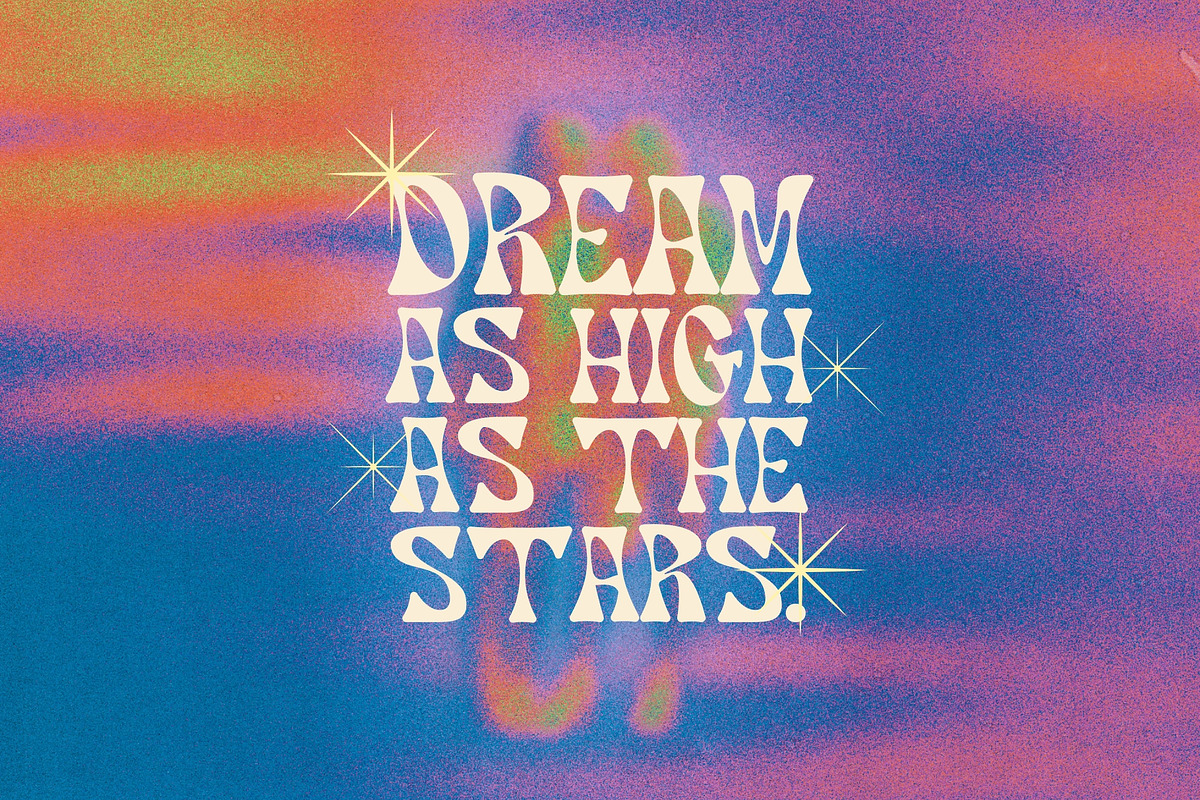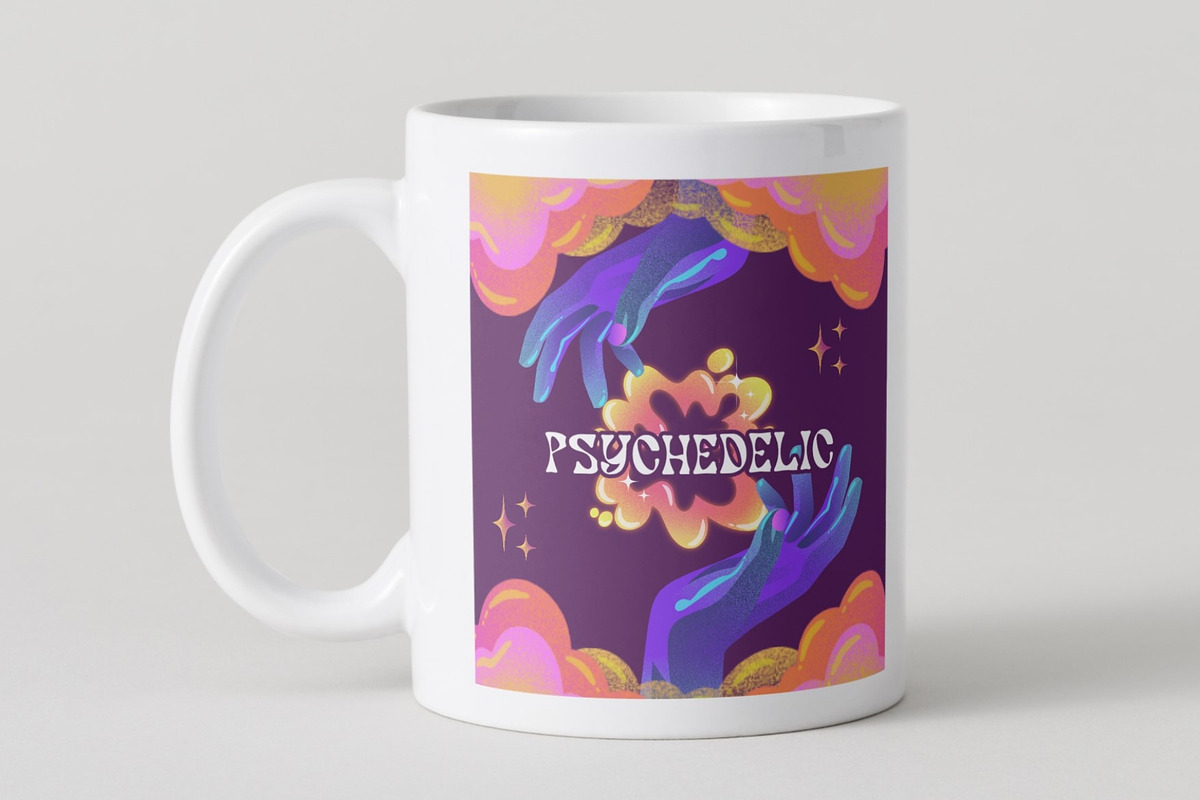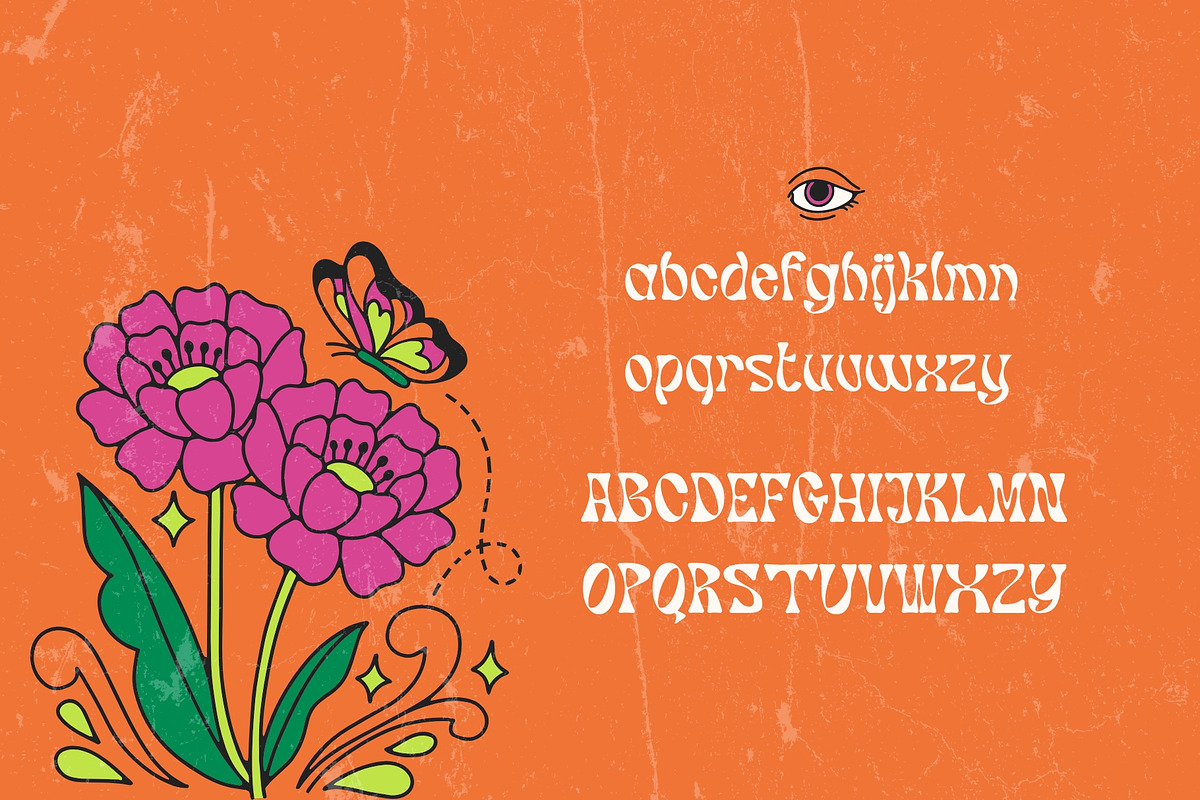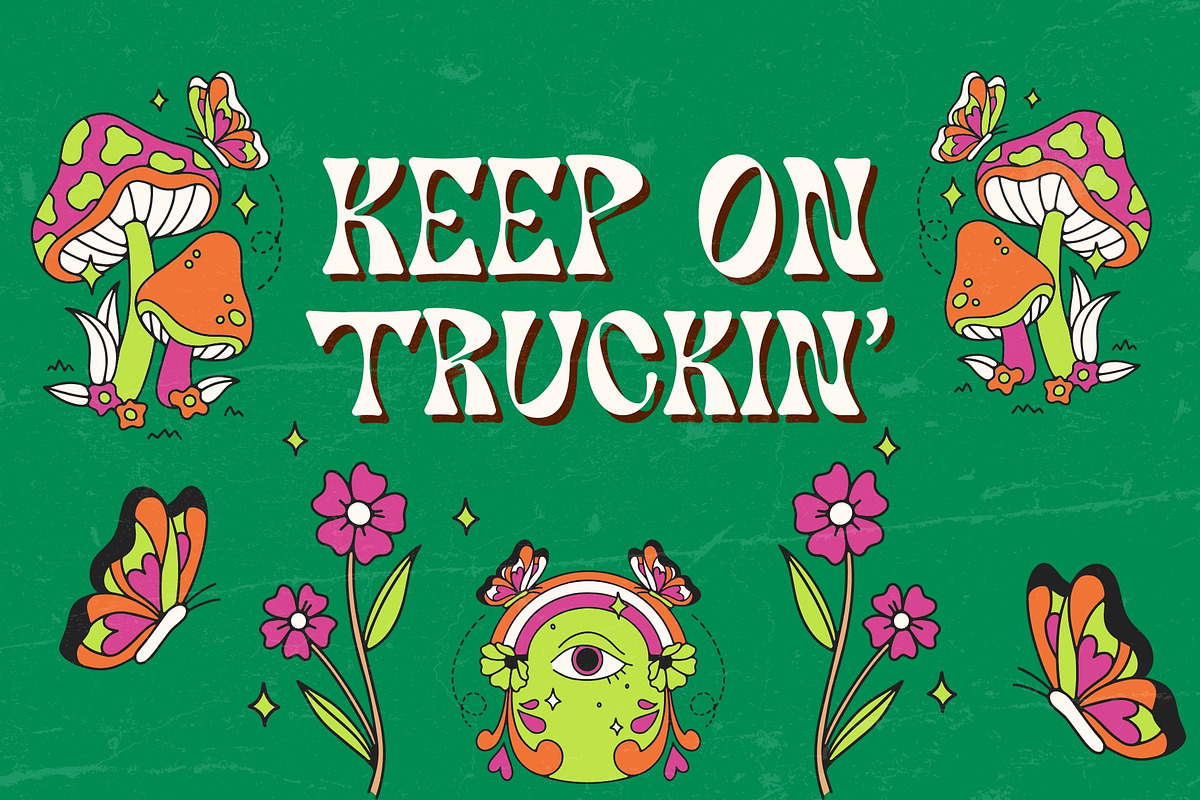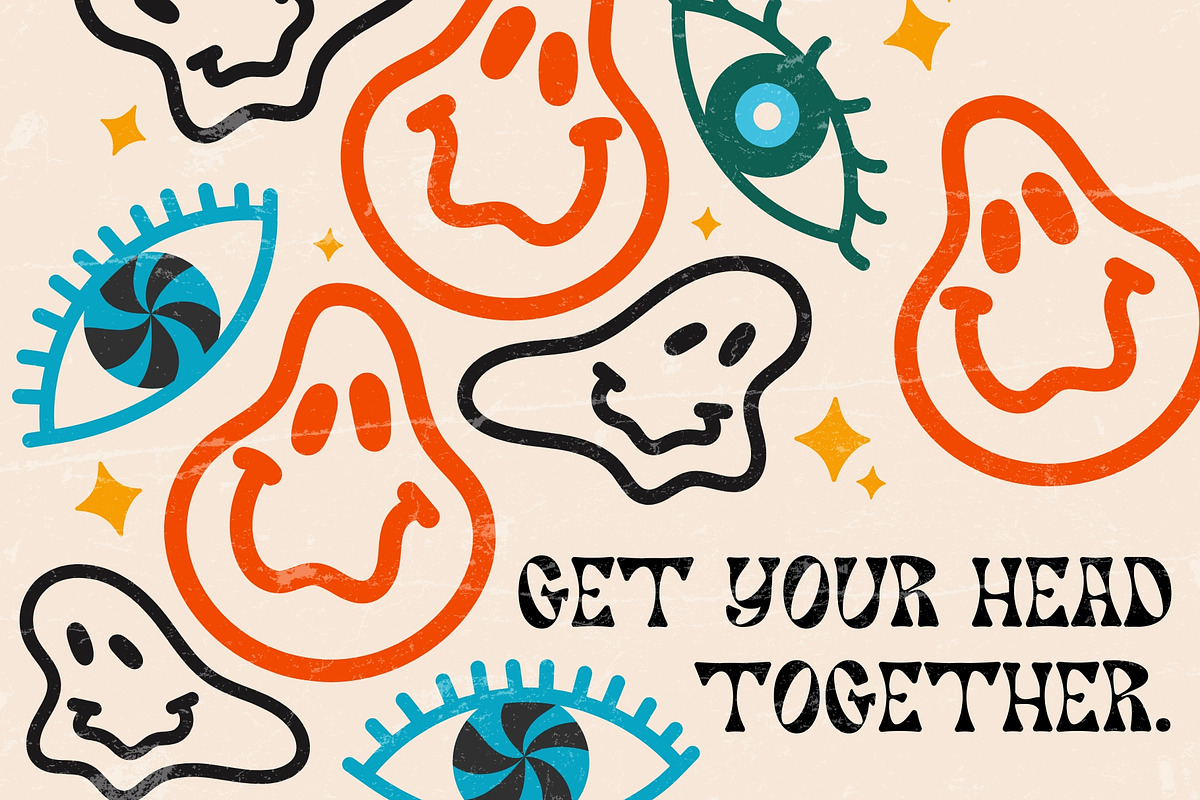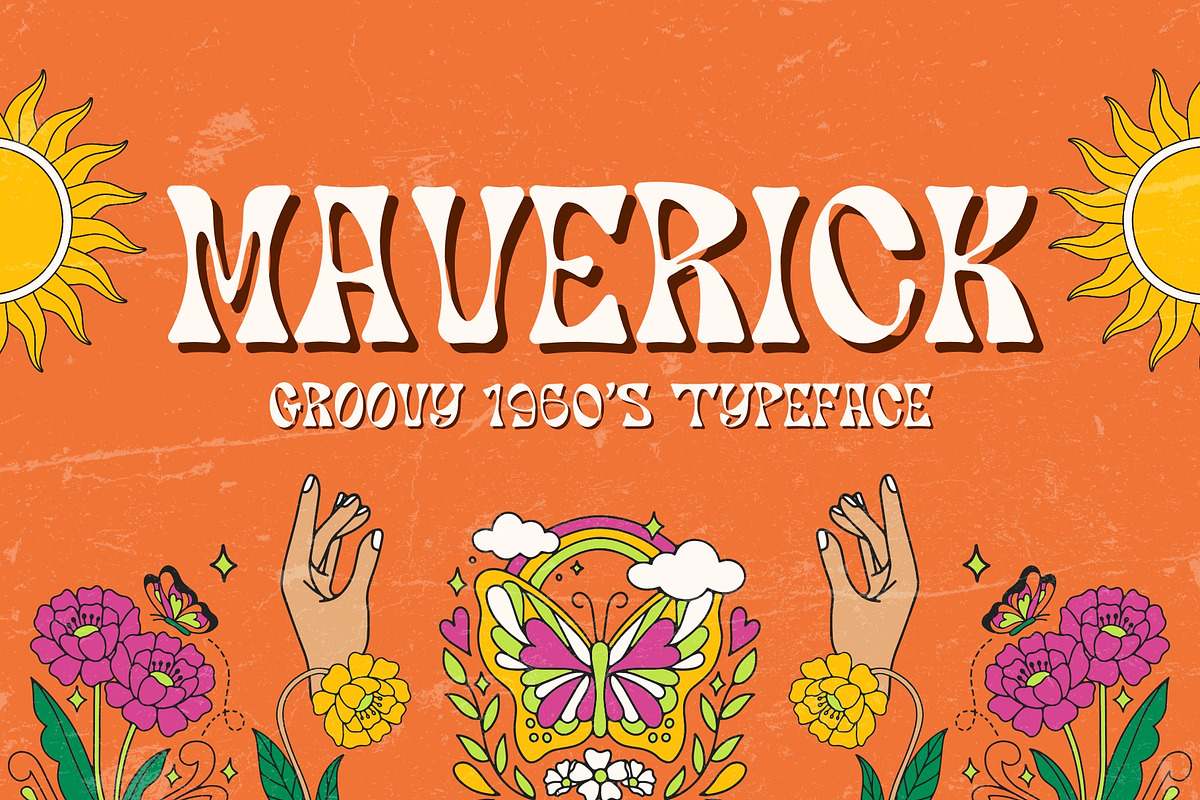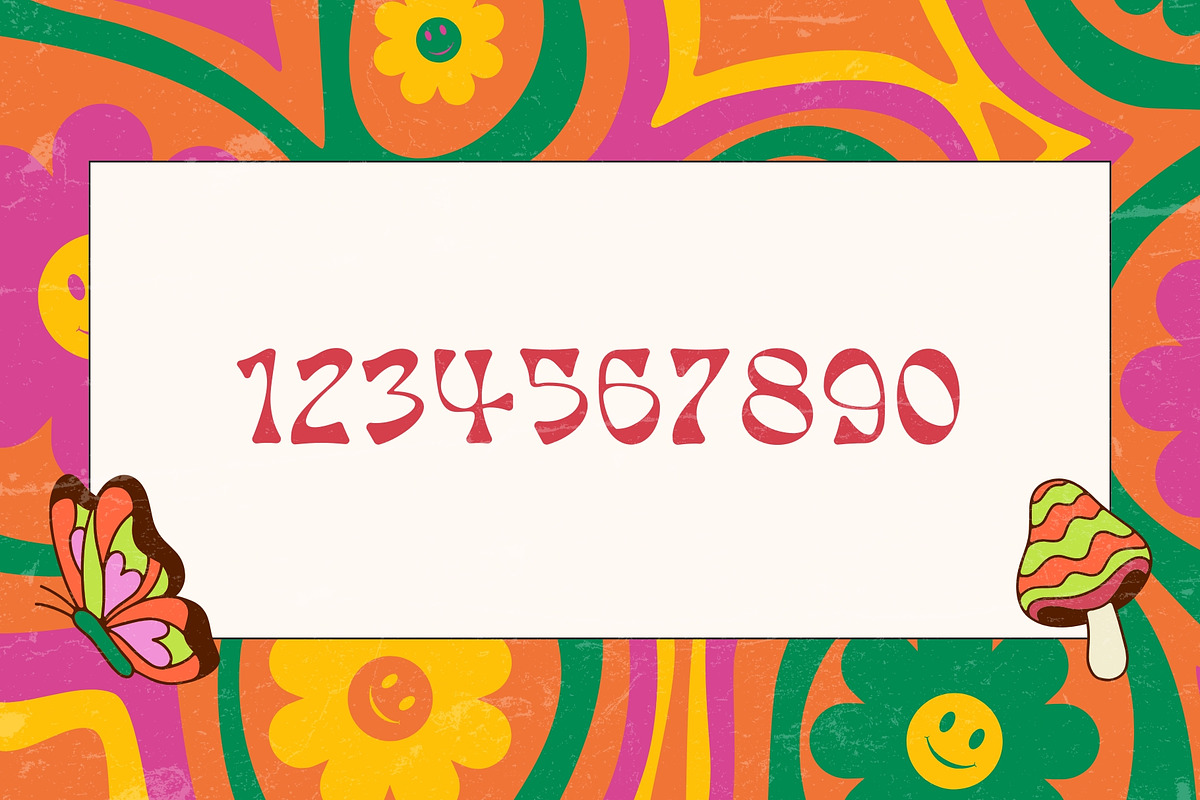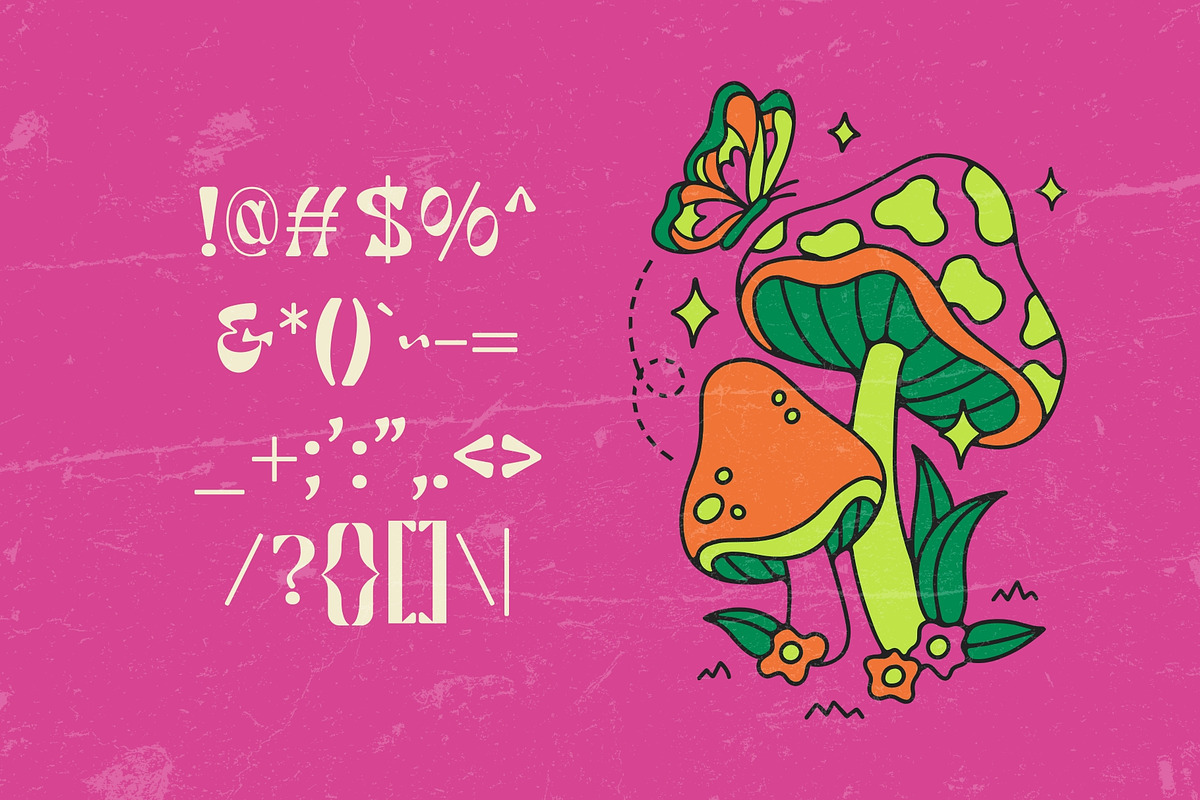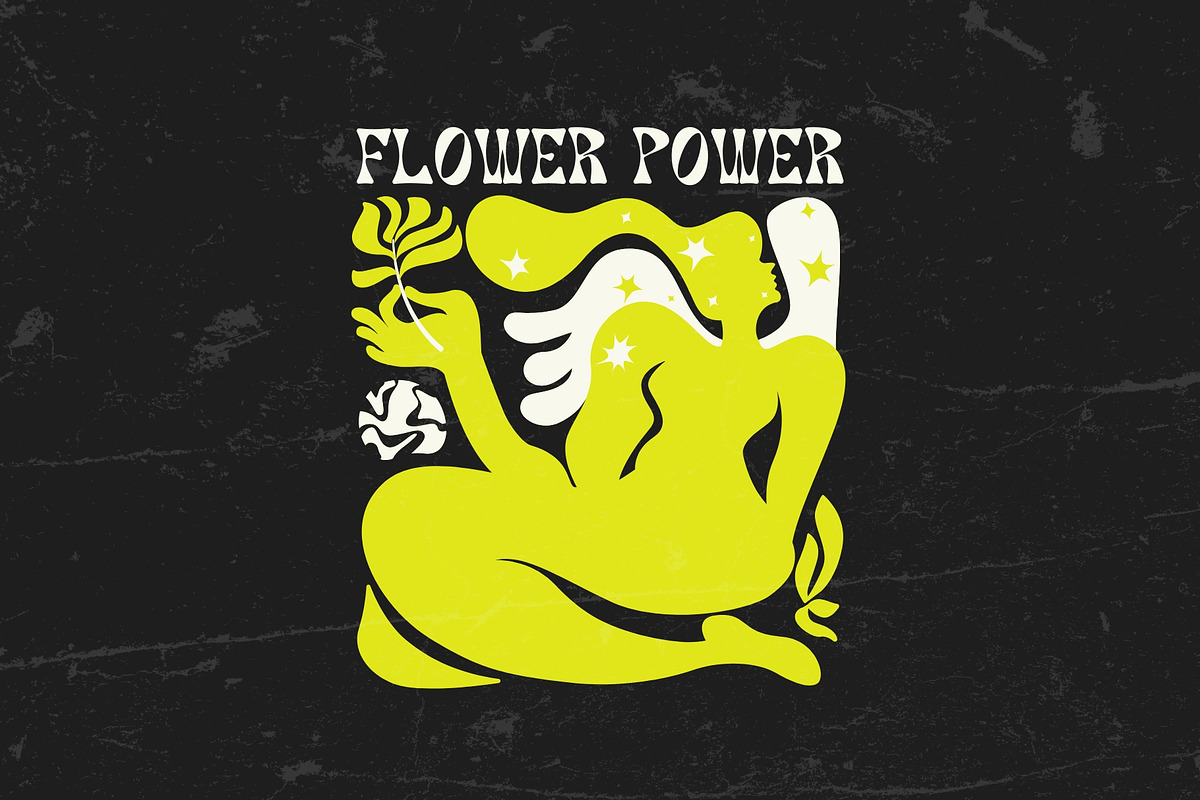
Maverick - Groovy 1960's Typeface
Step into a time machine and groove your way back to the psychedelic ‘60s with Maverick – a bold and funky typeface bursting with free-spirited energy! Inspired by the era of peace, love, and rock & roll, Maverick brings vintage vibes with a modern twist, making it perfect for posters, logos, stickers, album covers, branding, and so much more.
With its wavy, curvy, and effortlessly cool letterforms, this typeface radiates hippie charm, Woodstock soul, and flower power magic. Whether you're creating a retro festival flyer, a funky fashion brand, or a psychedelic design, Maverick is here to make your work far out and outta sight!
So, if you're ready to let your freak flag fly and bring a touch of vintage rebellion to your designs, Maverick is the perfect typeface to make your creativity shine. Stay groovy, stay bold, and let the good vibes roll!